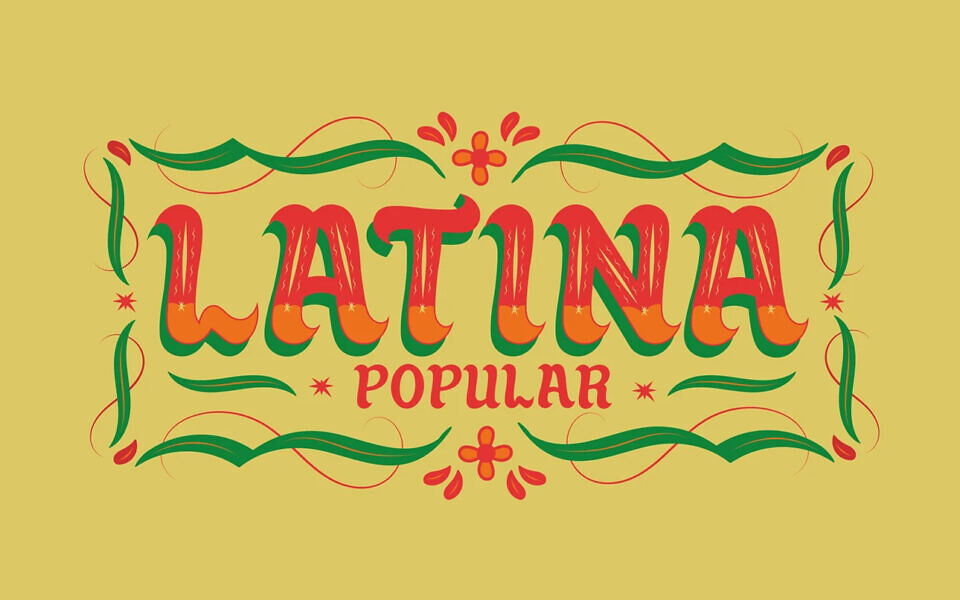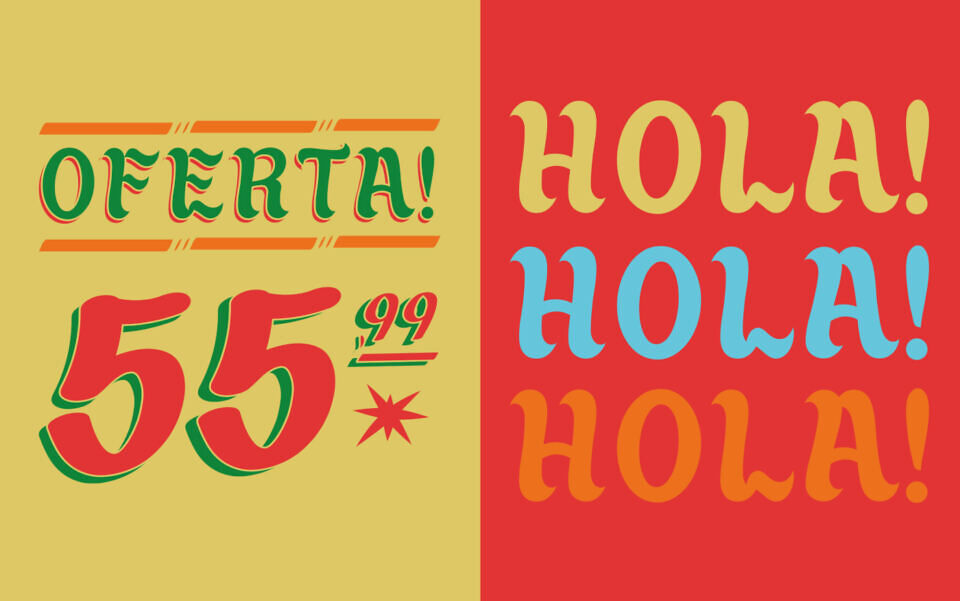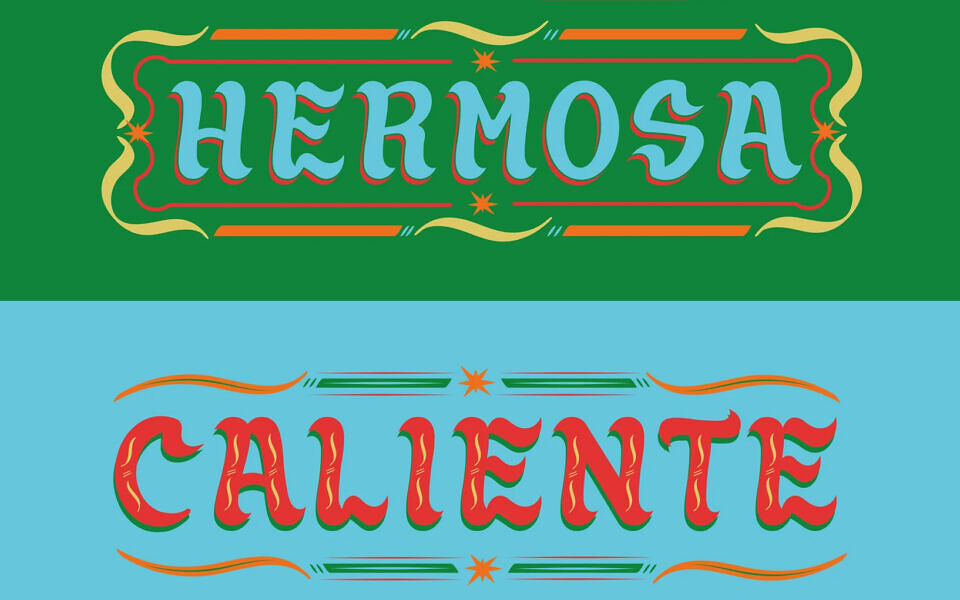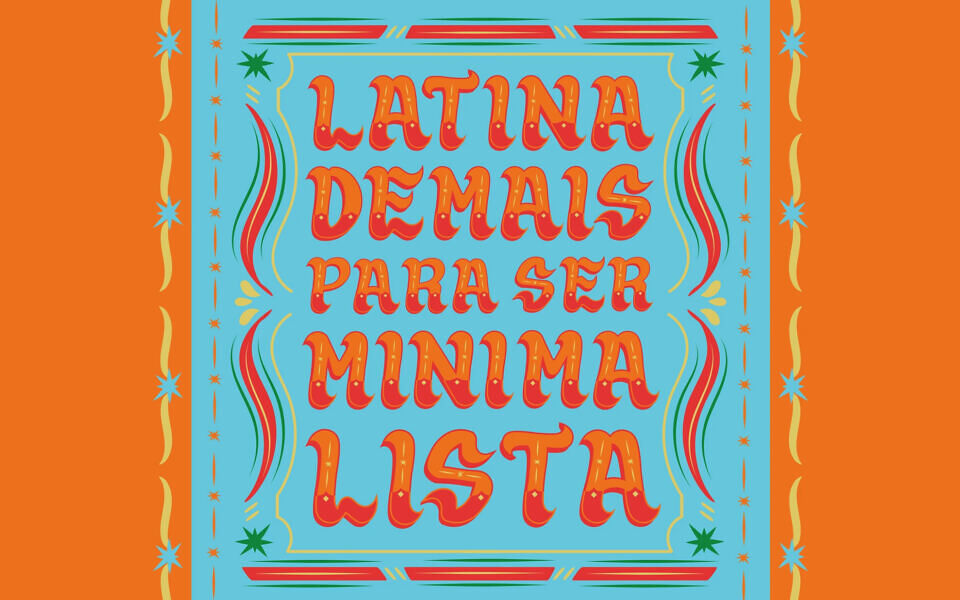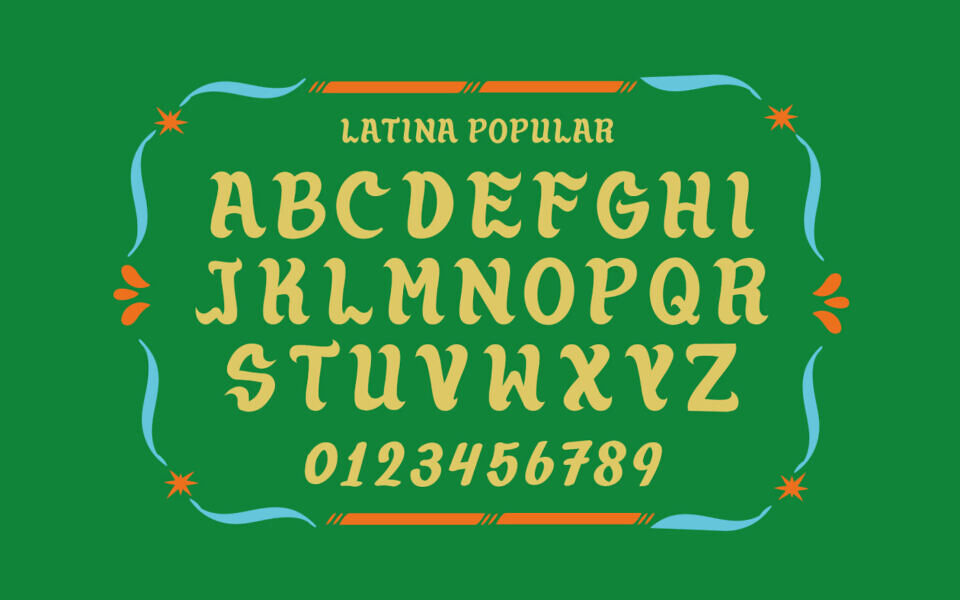
Latina Popular Font
Latina Popular is a typeface that celebrates the richness of Latin American typographic culture, drawing inspiration from Peruvian vernacular signage, popularly known as Chicha.
The goal of this project is to promote Latin typography by supporting designers who seek authentic typefaces to develop their work in a market that still offers limited options within this aesthetic. This font stands as an accessible alternative that remains true to the cultural roots that inspired it.
Because of its popular origins, the typeface is released for free, with the intention of spreading Latin America’s exceptionally rich and diverse typographic heritage while encouraging creativity across a wide range of applications.